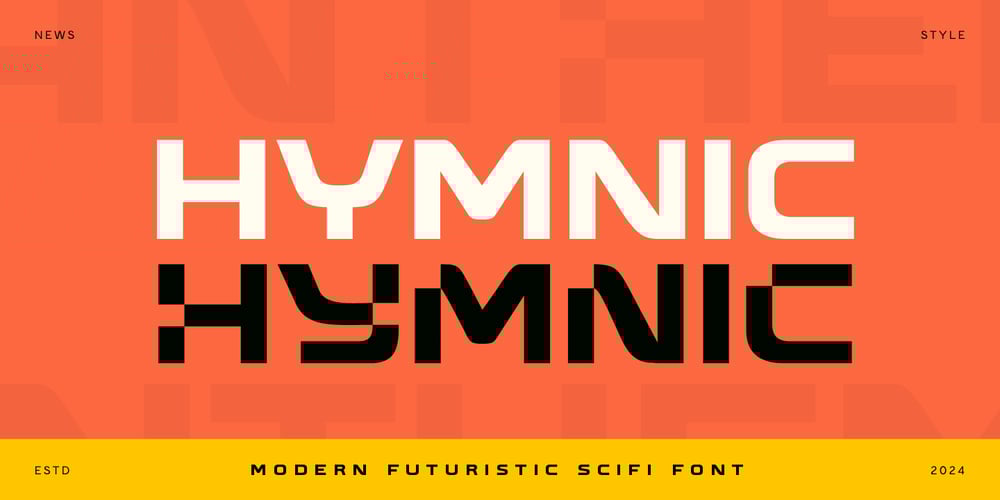
Hymnic
Hymnic font
Hymnic Font Family was designed by Zamroni Hamzah and published by Sensatype Studio. Hymnic contains 2 styles and family package options. Hymnic is a Futuristic Sci-fi Font created specifically for Sci-fi, Modern, and Technology designs. Its unique, futuristic styles make your typography stand out, ideal for Cryptocurrency, technology, film, and Sci-fi themes. Hymnic’s modern aesthetics bring a tech-inspired feel to any project, perfect for expressing your main ideas.Hymnic Futuristic Sci-fi Font features: Sleek, futuristic characters designed for Technology-themed creativity Available in 4 file formats Preview examples to inspire your designs with Hymnic font Includes special Technology and Sci-fi characters Perfect for headlines, posters, branding, and digital art Enhance your designs with Hymnic’s cutting-edge style and make your projects shine. Enjoy the futuristic touch Hymnic brings to your work!